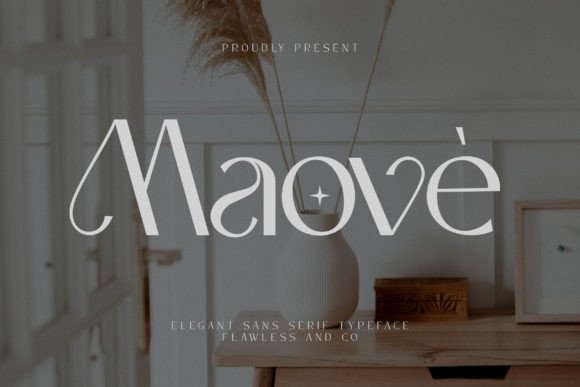
Discover the magical world of typography with Maove Font, the ultimate font for Harry Potter letter enthusiasts. Created by the talented team at Flawless And Co, this modern elegant sans serif font is sure to captivate and inspire.
Maove Font is more than just a font - it's an experience. Immerse yourself in the epitome of modern elegance as you explore the clean lines, refined characters, and attention to detail that make Maove Font truly special. With its wealth of alternative characters and ligatures, this font allows you to unleash your creativity and add a touch of uniqueness to your designs.
Whether you're designing invitations, logos, or social media posts, Maove Font has the versatility to adapt to any project. Its timeless grace and style make it perfect for a range of themes and aesthetics. From classic and elegant to modern and edgy, Maove Font effortlessly enhances your visual storytelling.
But what sets Maove Font apart from other fonts? Its ability to evoke emotion and transport your audience into a world of enchantment. Imagine the excitement and anticipation that comes with receiving a letter from Hogwarts. With Maove Font, you can recreate that feeling and bring a sense of magic to your designs.
The carefully crafted letterforms of Maove Font are reminiscent of the calligraphy used in the Harry Potter series, making it the ideal choice for fans and enthusiasts. Whether you're creating Harry Potter-themed merchandise or simply want to add a touch of wizardry to your designs, Maove Font is here to make your visions come to life.
Don't settle for ordinary fonts when you can elevate your designs with Maove Font. Step into a world of elegance, creativity, and emotion with this captivating sans serif font. Download Maove Font today and embark on a journey of limitless possibilities.
Experience the magic of Maove Font - where modern elegance meets enchantment. Transform your designs into works of art that captivate and inspire. Explore the world of typography like never before with Maove Font, the font for Harry Potter letter enthusiasts.